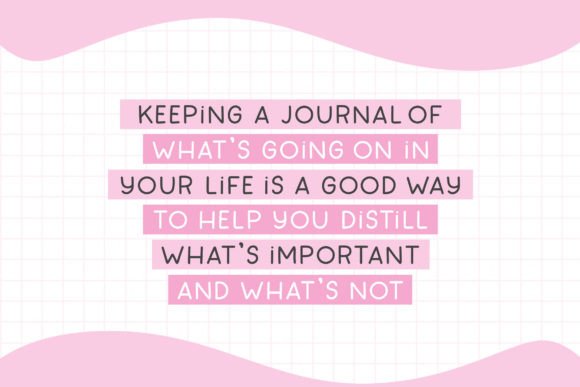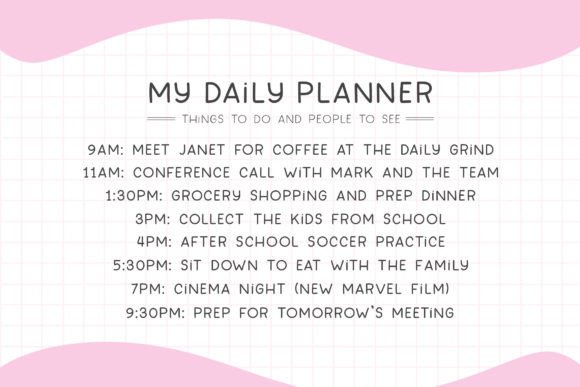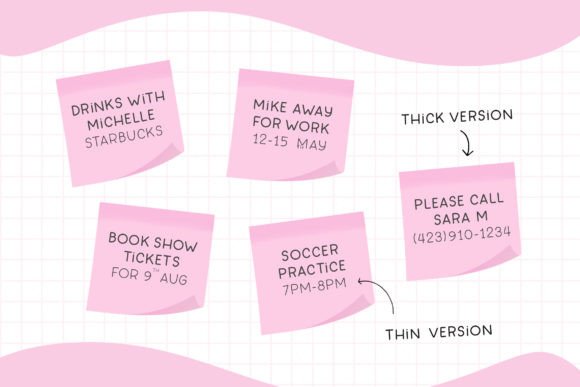
My Daily Journal Font: Free Download Now
Introduction to My Daily Journal Font
My Daily Journal is an adorable handwritten font.
Why Choose My Daily Journal Font?